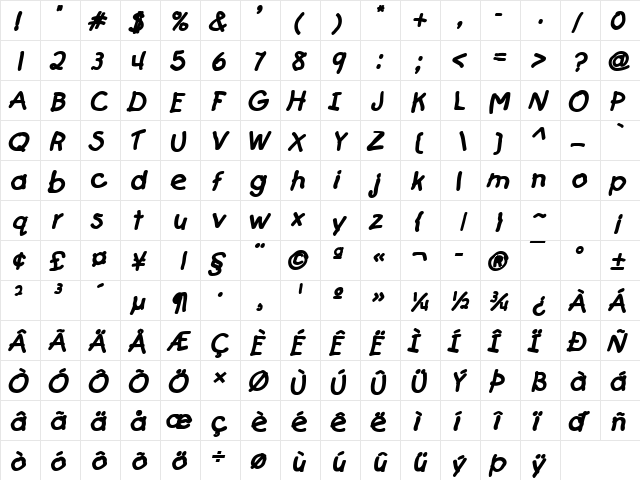
Catchup BoldItalic Font Preview
Design Context for Catchup Typeface
Catchup takes a measured approach to typography — its balanced proportions and neutral character make it a reliable workhorse for both digital and print work. Its italic angle brings a sense of urgency and motion to the letterforms. The heavy weight commands attention and anchors typographic hierarchies.
Pro Tip: Try Catchup for annotation and caption copy alongside an upright companion — the contrast in angle creates a dynamic but ordered typographic system.